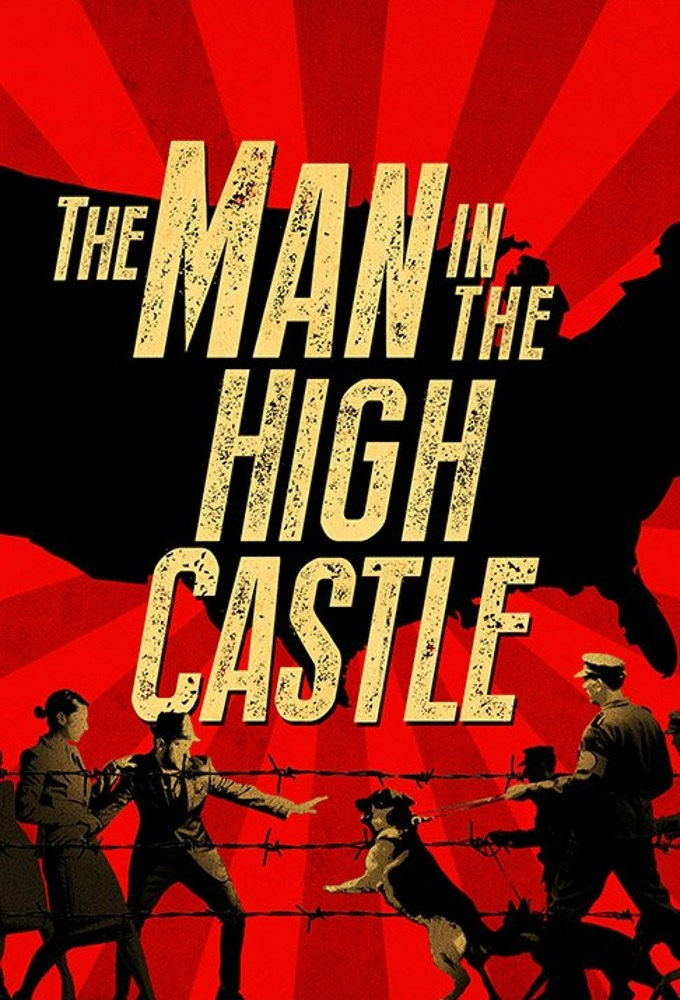
The Man in the High Castle Font
Fonts in UseThe Man in the High Castle is a television series based on Philip K. Dick's novel of the same name, set in an alternative timeline where Nazi Germany and Japan won World War II and now control the United States.
"The Man in the High Castle" title font on the poster appears to be Press Style, a narrow sans serif with an eroded look designed by Galdino Otten, resembling an italicized version. While it is free for personal use, you can download it for free from the Fonts Used Section.
As for the blackletter font used in the opening title of the series, it is likely Halja Regular designed by Michael Parson and published by T-26.